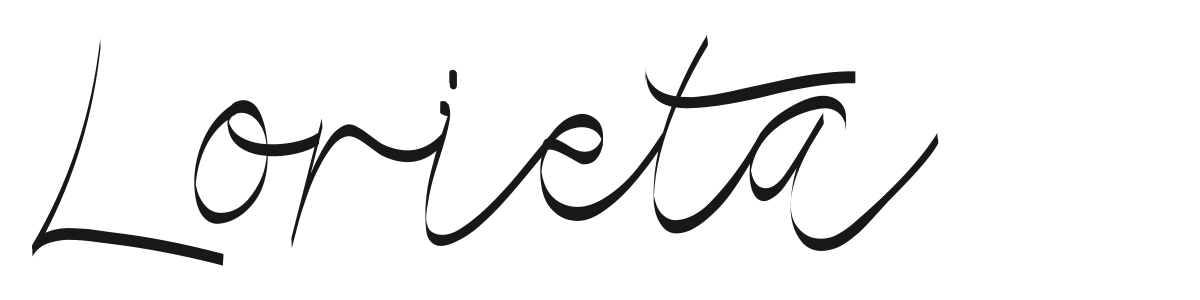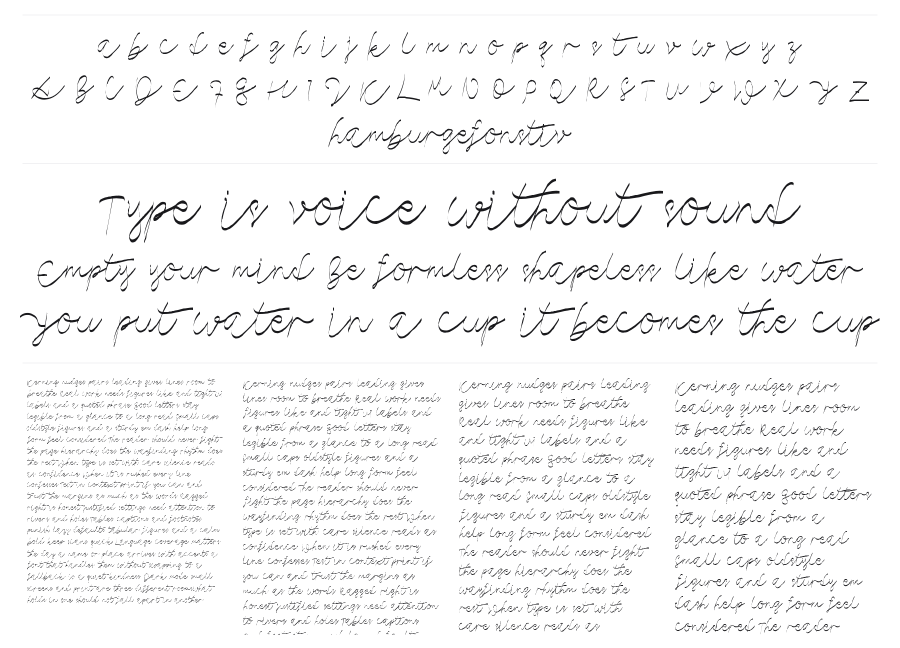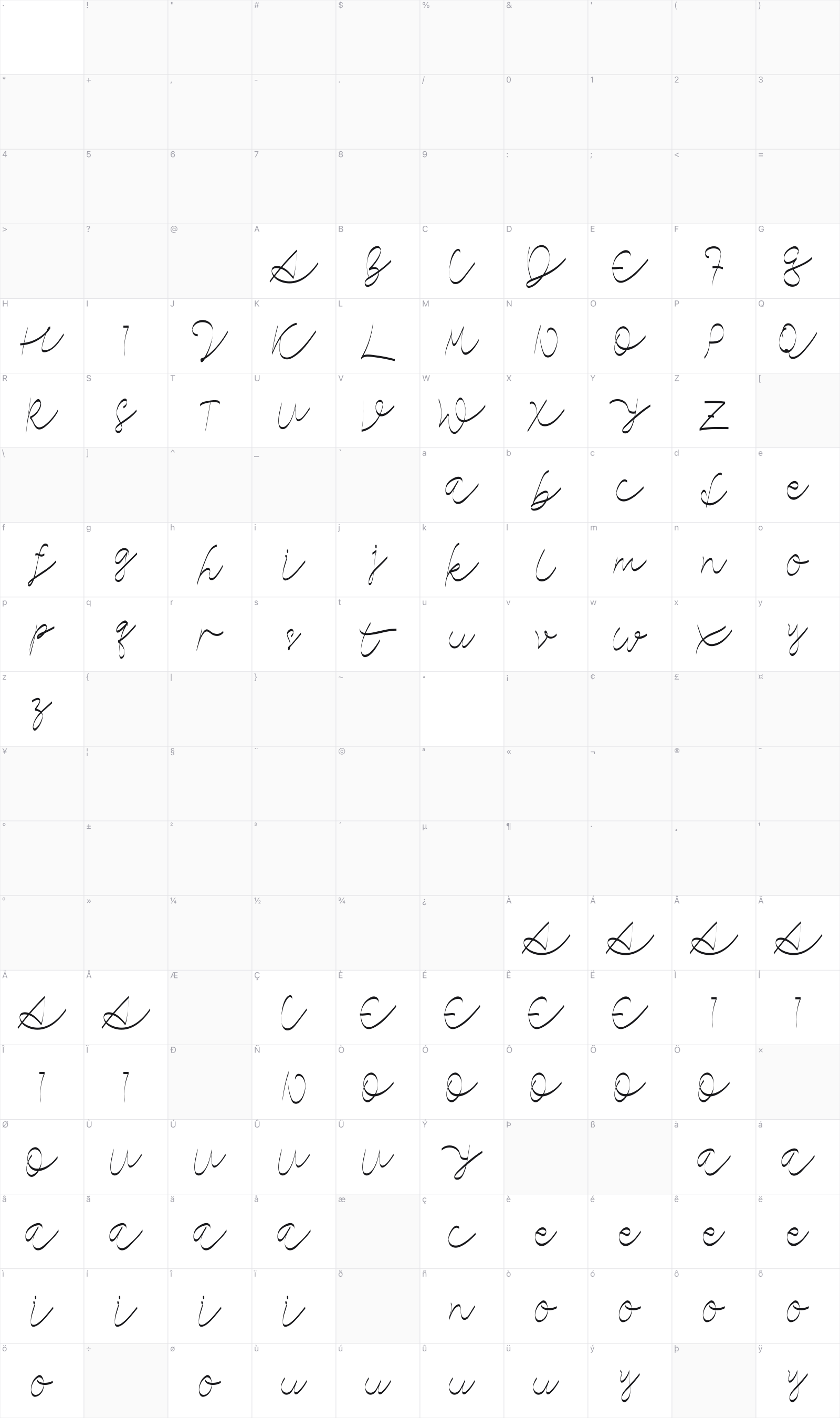
Lorieta
Lorieta is a flowing casual handwriting script with loose, looping strokes and a consistently thin weight. Long connecting strokes between characters give it an airy, unforced rhythm that feels personal without being messy. It works well at large sizes for logos, invitations, packaging, and anywhere a human touch is needed.